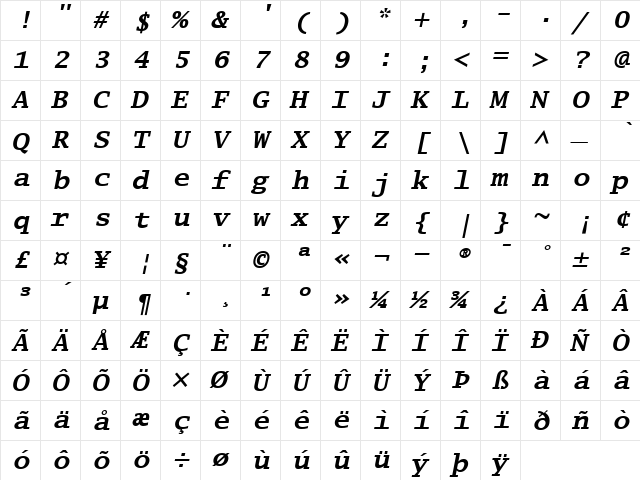
LucidaTypewriter BoldItalic Font Preview
Design Context for LucidaTypewriter Typeface
LucidaTypewriter uses fixed-width spacing throughout, giving it the structured, systematic character associated with coding environments and technical documentation. The slanted form adds forward momentum and visual energy. Its bold stroke weight gives it real presence on the page.